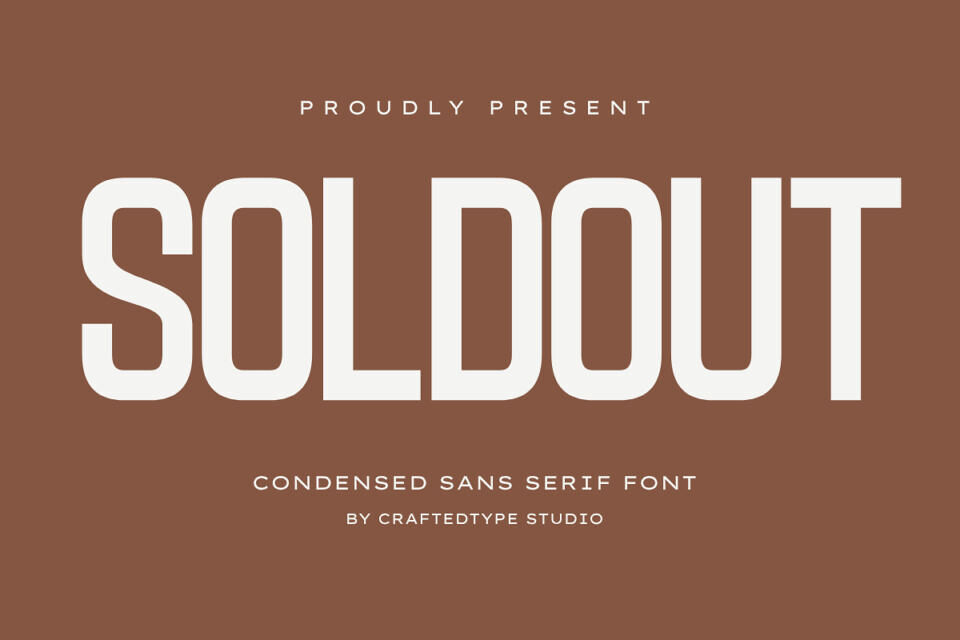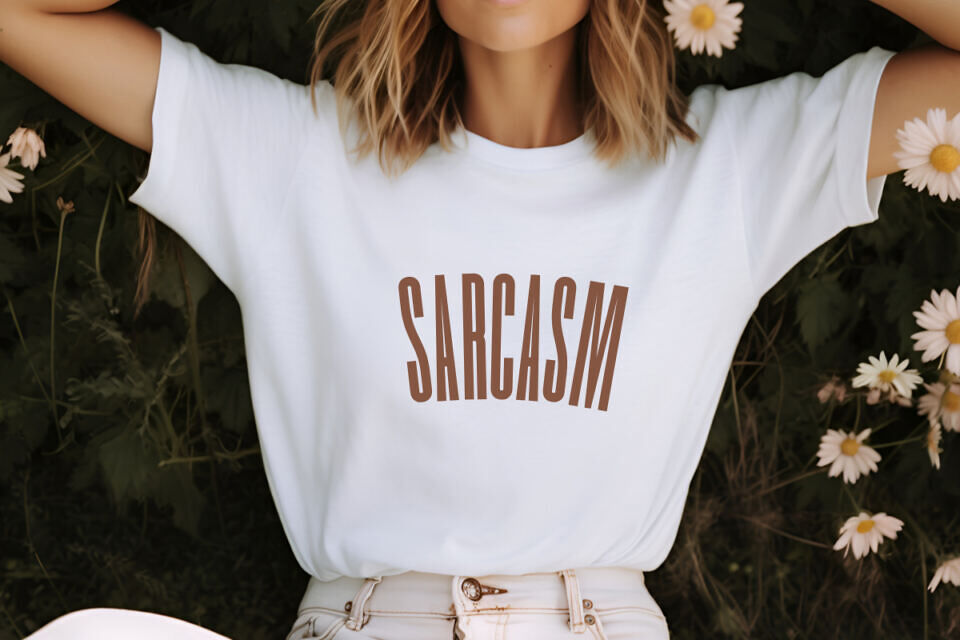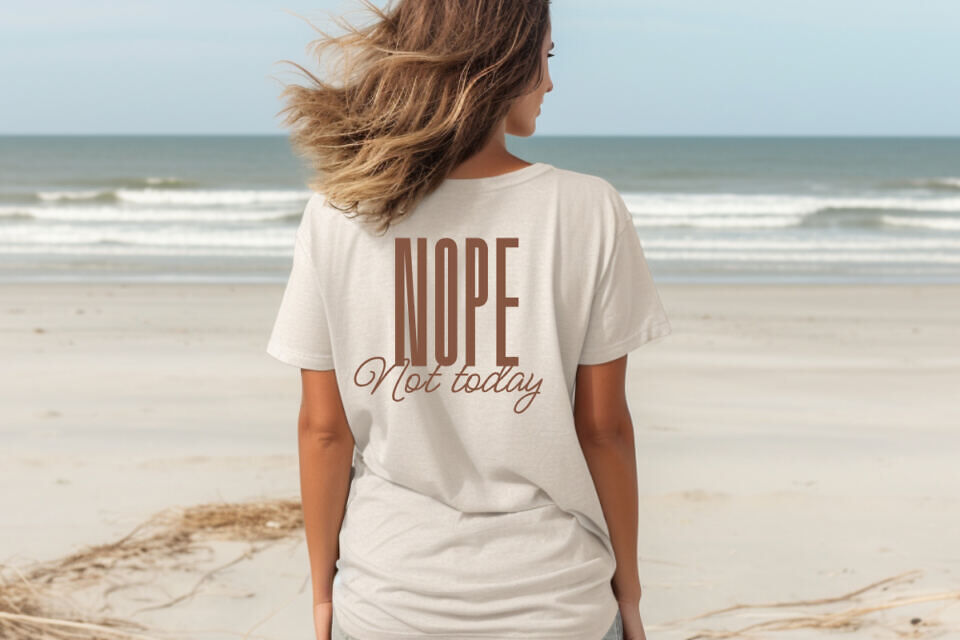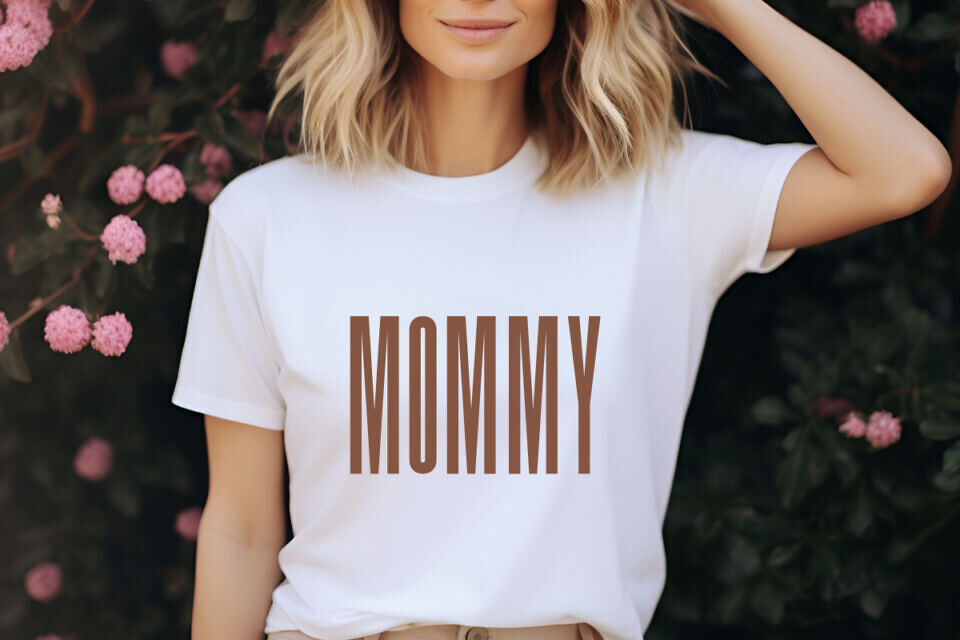
Soldout is a modern and impactful condensed sans serif font built for brands that want to stand out with clarity and confidence. Featuring clean, high-legibility letterforms and a balanced condensed structure, this font is a powerhouse for Print On Demand projects, including streetwear t-shirts, promotional posters, e-commerce banners, and product packaging.
Its professional yet urban aesthetic makes it the perfect choice for high-conversion marketing materials, bold branding, editorial headlines, and cinematic titles.